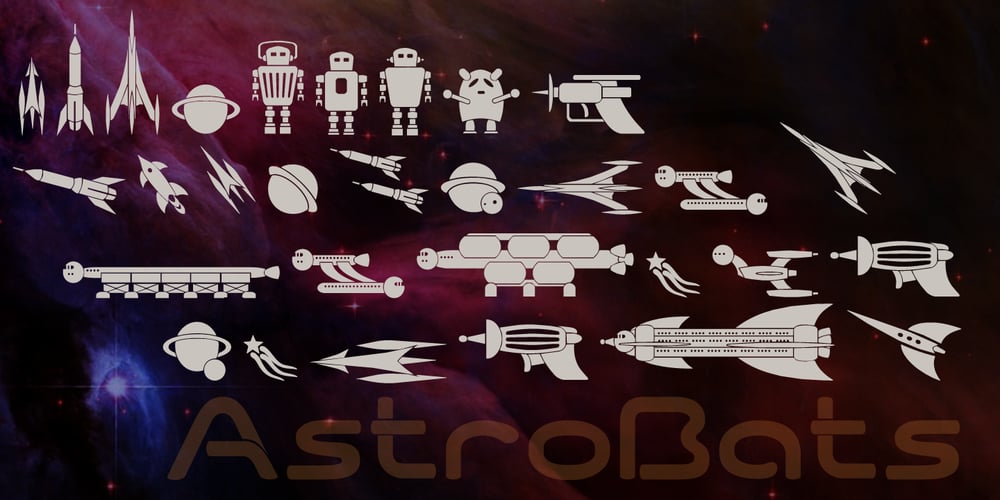
Astro Bats Font Family was designed by Paul James Lloyd and published by Greater Albion Typefounders. Astro Bats contains 1 styles and family package options. AstroBats is a fun set of ornaments with a ‘Retro Sci-Fi’ theme. Think of those 1950s Japanese tinplate robots, think ray guns, think spaceships! Have fun!